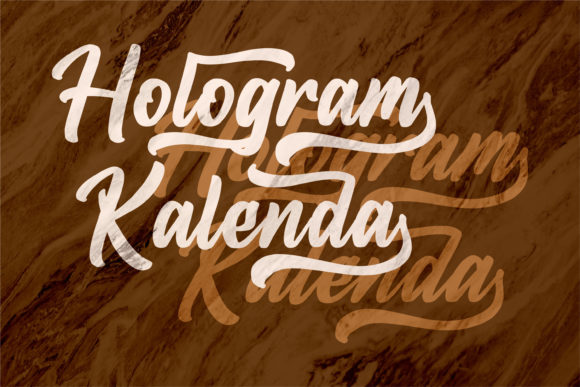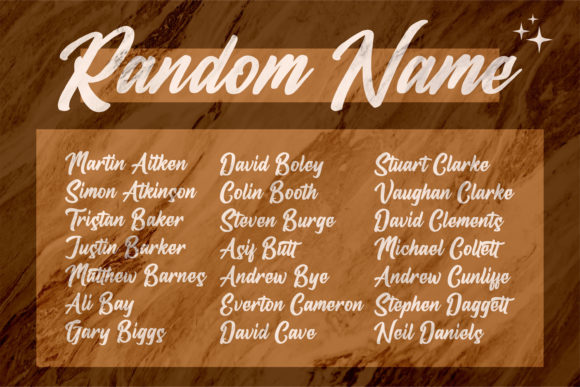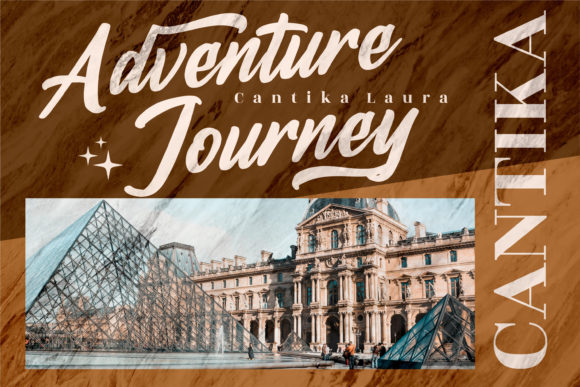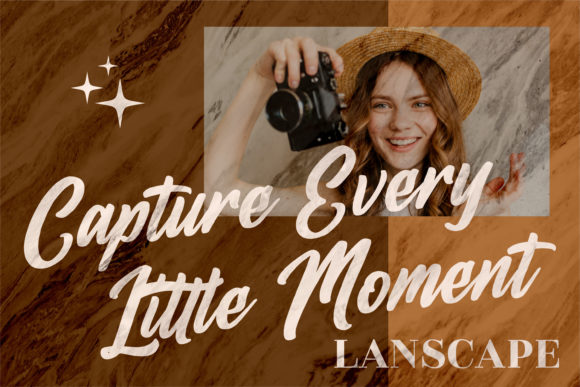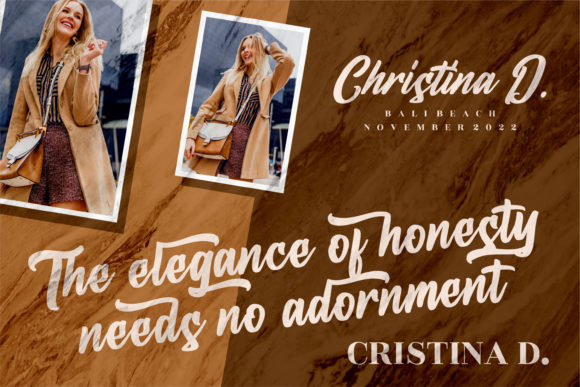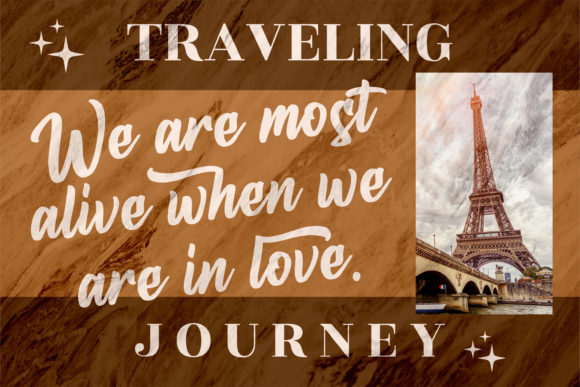
Introduction to Hologram Kalenda Font
Do you remember the feeling of excitement when you finally found the perfect font for your creative project? The thrill of watching your words come alive on the page, the satisfaction of seeing your design vision take shape? For designers, this moment is a defining experience that sets the tone for a successful project. And for those who value high-quality design resources, the Hologram Kalenda Font is an exciting discovery waiting to happen.
With its modern calligraphic script style and perfectly transparent background, this versatile font is a game-changer for designers looking to elevate their projects. Whether you’re creating wedding invitations, birthday cards, or simply a heartfelt letter, Hologram Kalenda Font is the perfect design companion to help you express your creativity and make a lasting impression.
Key Features of Hologram Kalenda Font
- Unique Holographic Design: The Hologram Kalenda Font features a mesmerizing holographic design that adds a touch of futuristic elegance to any creative project.
- Transparent Background: This font includes a transparent background, allowing designers to easily customize and integrate it into their designs with a high-quality look.
- High-Quality Design Resource: The Hologram Kalenda Font is a high-quality design resource that can be used in a variety of creative projects, from digital art to graphic design.
- Resolution-Independent: The font is resolution-independent, ensuring that it looks sharp and clear at any resolution, from low to high DPI.
- Perfect for Creative Projects: The Hologram Kalenda Font is ideal for designers and artists working on creative projects that require a touch of futuristic and holographic flair.
Honest Review: Hologram Kalenda Font
As a designer, I’m always on the lookout for unique and high-quality design resources to elevate my creative projects. The Hologram Kalenda Font has definitely caught my attention, and I’m excited to share my honest review with you.
- ✨ Unique and futuristic design aesthetic that’s perfect for sci-fi and tech-themed projects
- ✨ Transparent background, making it easy to use on any background or image
However, I do have some limitations to mention:
- ⚠️ Limited font styles and variations, which might limit its versatility
- ⚠️ Not suitable for projects that require a more traditional or classic font aesthetic
Overall, I’m impressed with the Hologram Kalenda Font’s unique design and high quality. While it may have some limitations, it’s an excellent resource for designers working on futuristic or tech-themed projects. If you’re looking for a free and high-quality font to elevate your creative project, the Hologram Kalenda Font is definitely worth checking out.
Use the font in conjunction with other design elements to create visually appealing graphics. Experiment with different font sizes and colors to add depth to your designs. Use the font’s transparent background to create stunning text overlays and graphics.
Hologram Kalenda Font is perfect for various design projects such as logos, graphics, presentations, and documents. Its high-quality design and transparent background make it a great resource for creative projects. The font is also great for designers who want to add a unique touch to their designs.